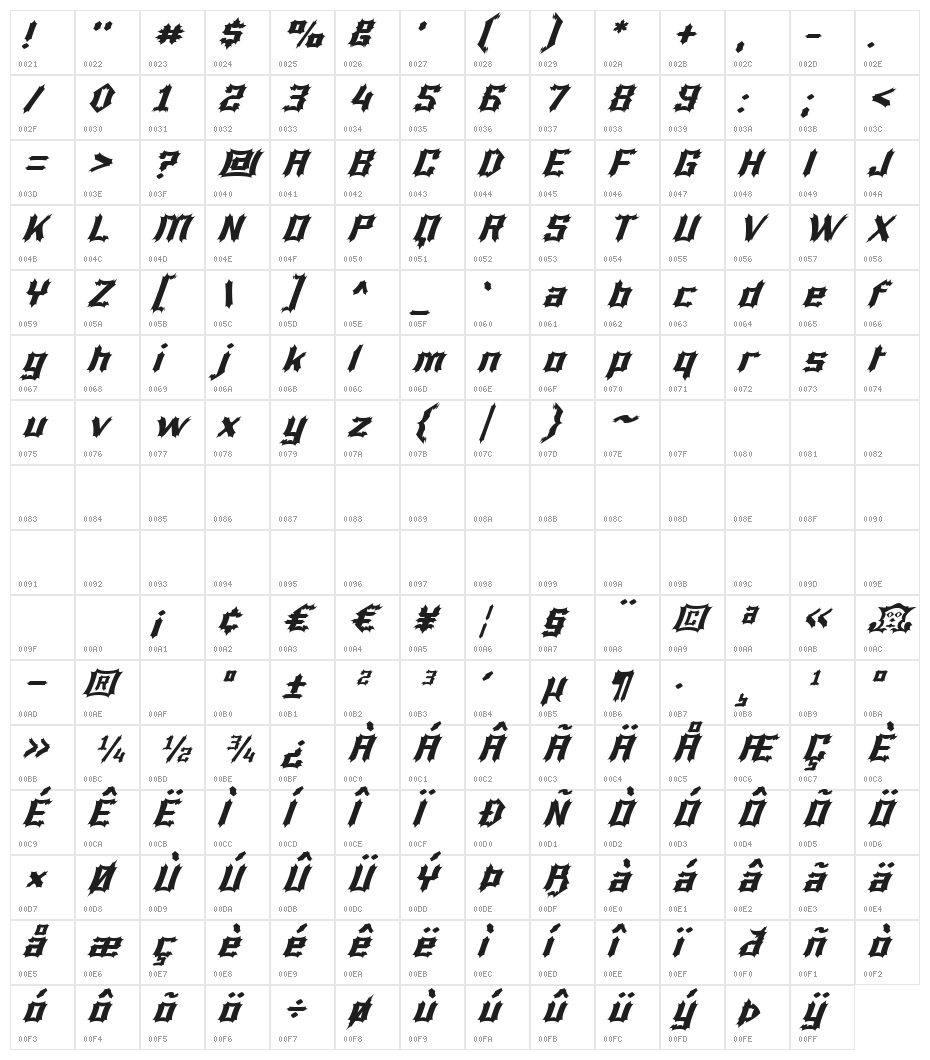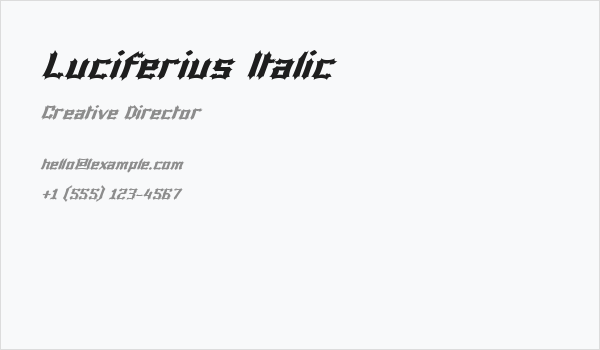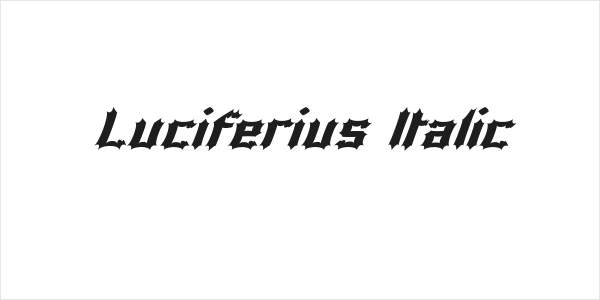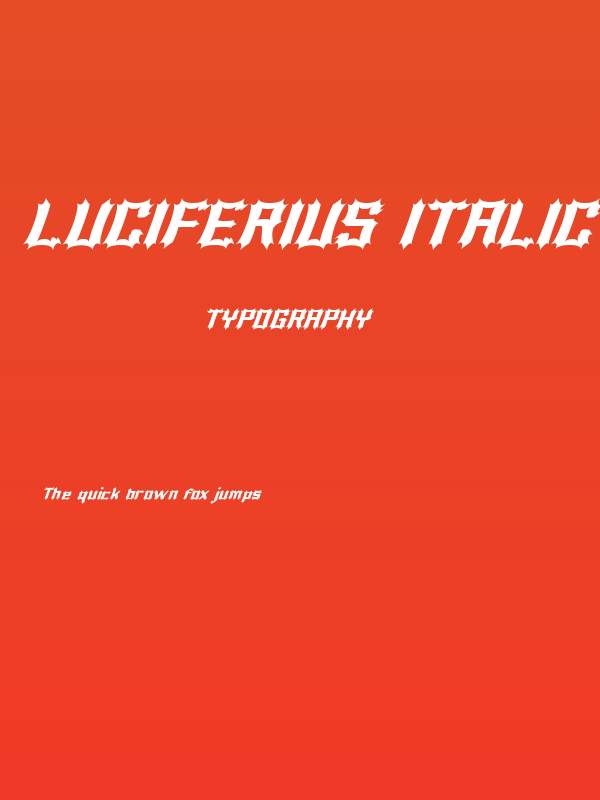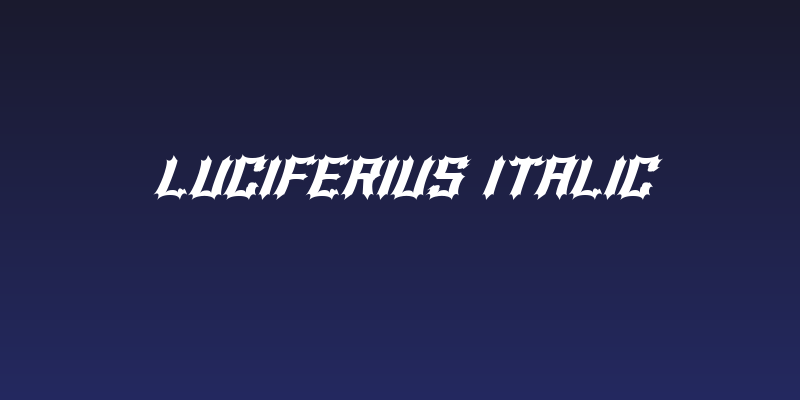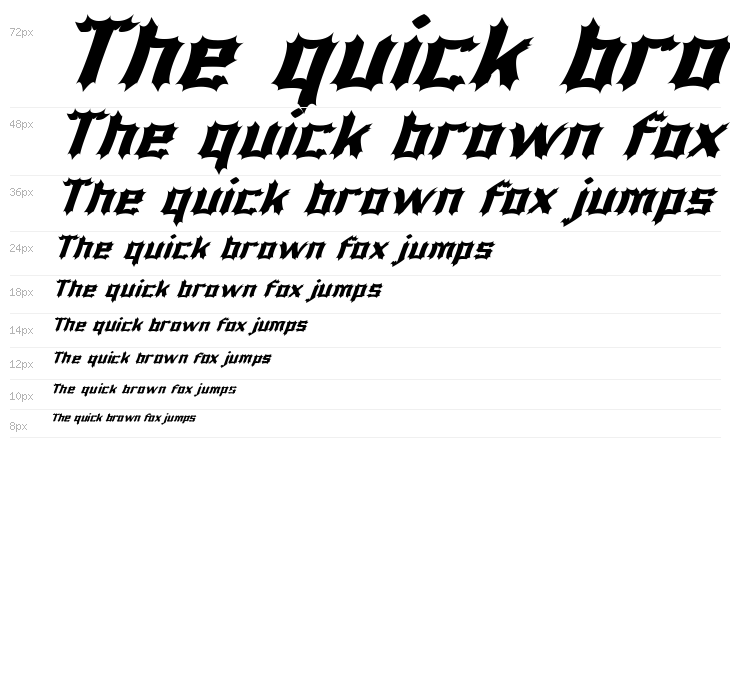
Luciferius Italic Font
Luciferius Italic Description
This font features a bold and aggressive design with sharp, angular edges and a distinct gothic influence. The characters are heavily stylized with pointed serifs and a dynamic, italic slant that gives a sense of motion and intensity. The uppercase and lowercase letters maintain a consistent style, with exaggerated spikes and curves that create a dramatic visual impact. The numerals and special characters follow the same aesthetic, ensuring a cohesive look across all text elements. The font's unique appearance makes it ideal for projects that require a strong, eye-catching typeface.
| Overall Style | Gothic, Decorative |
| Proposed Projects | Ideal for horror-themed designs, album covers, posters, and branding that requires a striking and edgy typeface. |